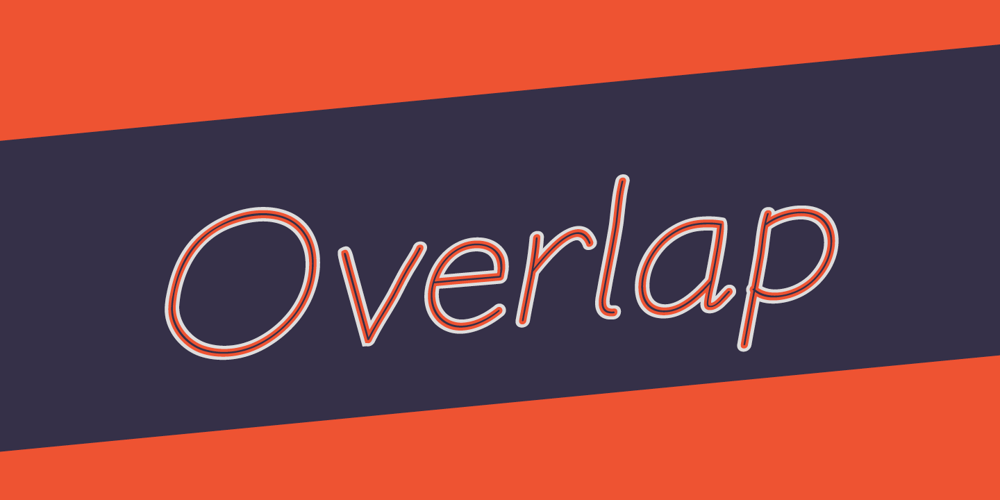
Elastica Font Family was designed by published by Resistenza. Elastica contains 12 styles and family package options. Elastica is a new handwritten type system created by Resistenza, it is based on humanistic sans serif fonts of early 20th century. Irregular handwritten strokes that gives a D.I.Y feeling perfect to get a close sense of communication. When using all caps, It features three different sets of capitals which combine together randomly, creating an elastic random effect with infinite combinations. OpenType features offers also the opportunity to use the three different capital sets separately. Its optimized legibility, simple structure and low contrast was made to perform excellently with e-books and mobile apps in mind. We recommend combining Elastica with ‘Beach Please’.